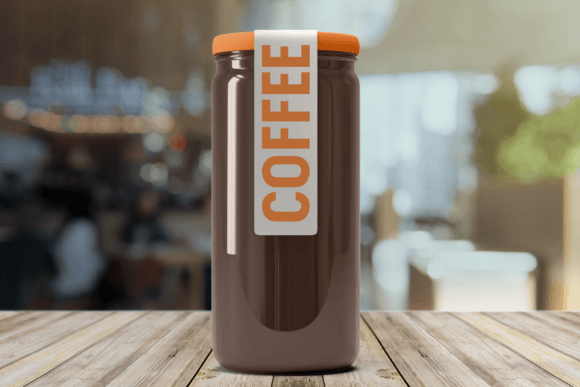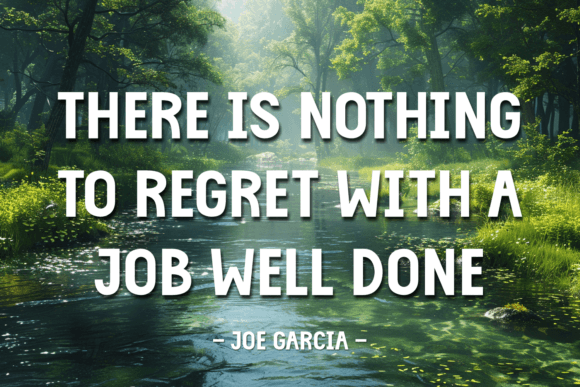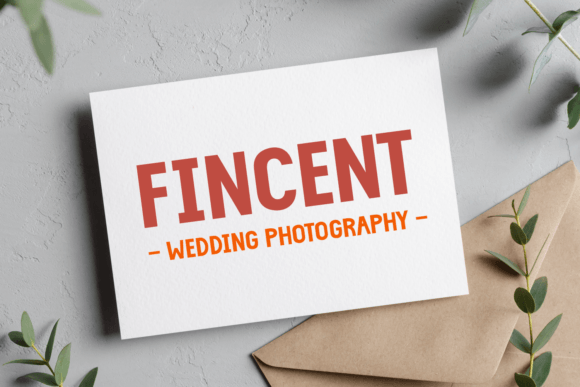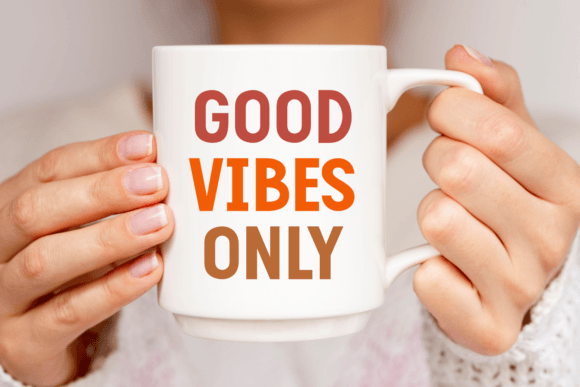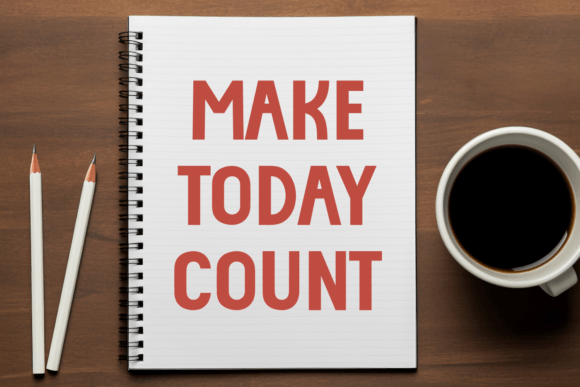
Introduction to Hore Done Font
As a designer, you know the thrill of bringing a creative project to life. The moment when your idea finally takes shape, and you see your vision unfold on the screen. But what makes the difference between a good design and a great one? The right font, of course! Introducing Hore Done Font, a sans-serif font that redefines the boundary of functionality and elegance.
With Hore Done Font, you can unleash your creativity without any limitations. Whether you need to design product packaging, brand your business, or adorn greeting cards, this polished typeface is your perfect aid. Its high-quality design and transparent background make it an ideal resource for designers who demand the best. And the best part? You can download it for free, making it a valuable addition to your design toolkit.
So, what sets Hore Done Font apart from other fonts? Its unique appeal, versatility, and multilingual compatibility make it a game-changer for designers. With Hore Done Font, you can capture the essence of your message and convey it to your audience with elegance and sophistication. Get ready to elevate your designs to the next level with this incredible design resource!
Key Features of Hore Done Font
- Comes in a transparent background version, perfect for layered designs and compositing.
- Features a unique, bold design style that can add a touch of personality to any project.
- Available in a single weight, with a resolution of 72 dpi, making it suitable for digital use.
- Can be easily resized and manipulated in design software, without losing its clarity and legibility.
Honest Review: Hore Done Font
As a designer, I’m always on the lookout for high-quality design resources to elevate my creative projects. Recently, I stumbled upon the Hore Done Font, and I was eager to put it to the test.
Here’s what works well: ✨ The font is incredibly versatile, with a wide range of styles and weights to suit any design project. The transparent background feature is also a huge plus, making it easy to overlay text on images or other design elements. The font is also free to download, which is a major bonus for designers on a budget.
Here are some notable features:
- High-quality design with precise lines and curves
- Wide range of styles and weights available
- Transparent background feature for easy overlay
However, I do have some limitations to note: ⚠️ The font can be a bit overwhelming with too many styles, making it difficult to choose the right one for a specific project. Additionally, some of the characters may not display correctly in certain software or browsers.
Overall, I’m impressed with the Hore Done Font, and I think it’s a valuable addition to any designer’s toolkit. While it may have some limitations, the benefits far outweigh the drawbacks.
The Hore Done Font is a versatile and high-quality design resource perfect for creative projects. It offers a transparent background, making it easy to integrate into various designs.
Tips for Getting the Most Out of Hore Done Font
For the best results, use the Hore Done Font on a high-resolution display and in combination with other high-quality design elements.
Common Use Cases for Hore Done Font
The Hore Done Font is perfect for a variety of creative projects, including:
• Brochures and flyers
• Business cards and letterheads
• Social media graphics and ads
• Infographics and presentations